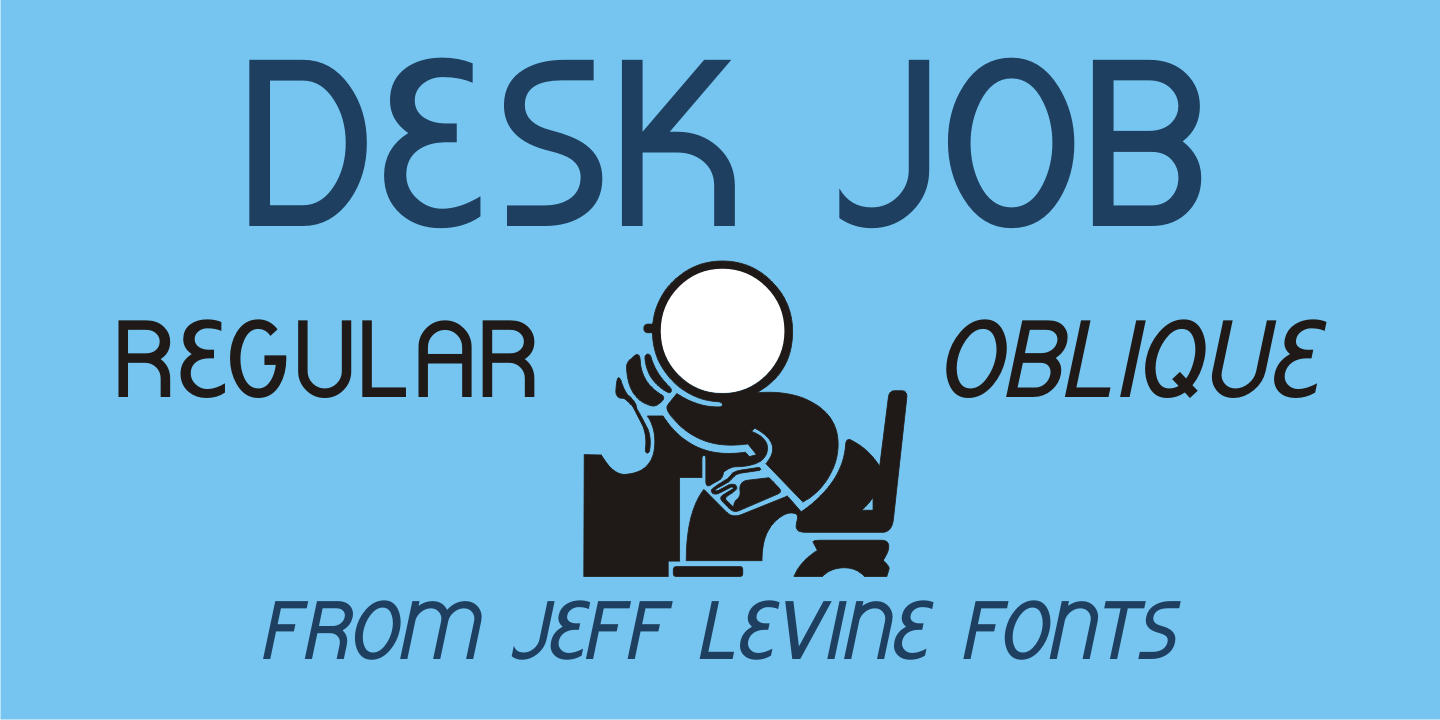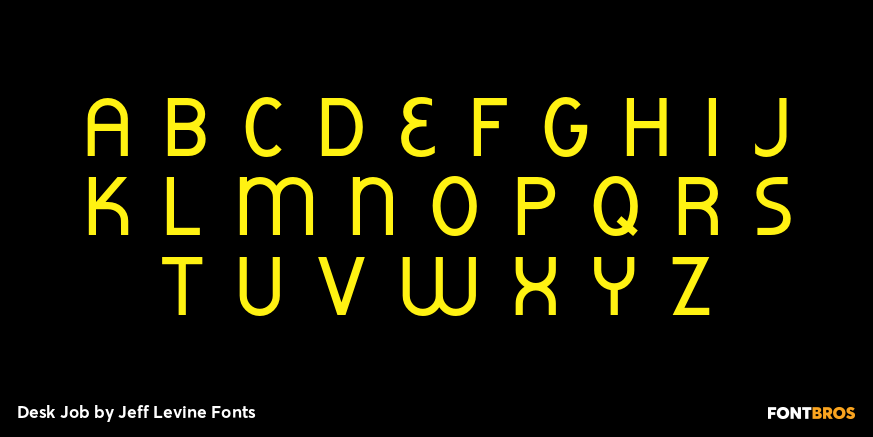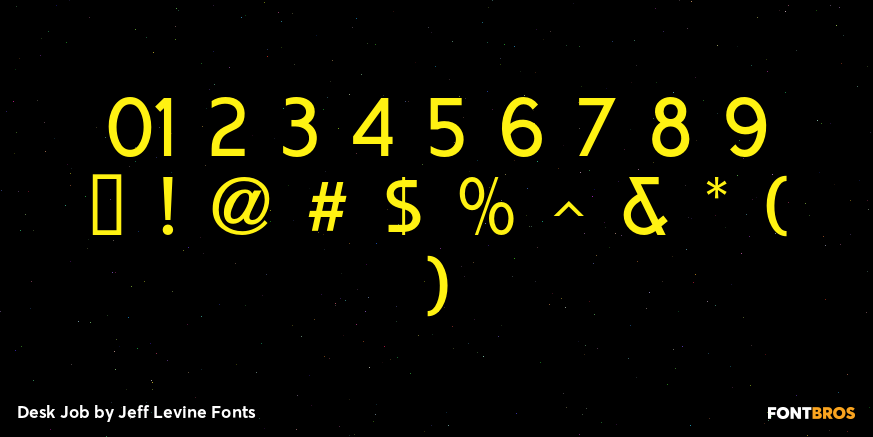
Desk Job
Desk Job JNL is an Art Deco-influenced typeface based on hand lettering found on the packaging of a vintage Hotchkiss No. 52 stapling pliers.
The typeface is available in both regular and oblique versions.